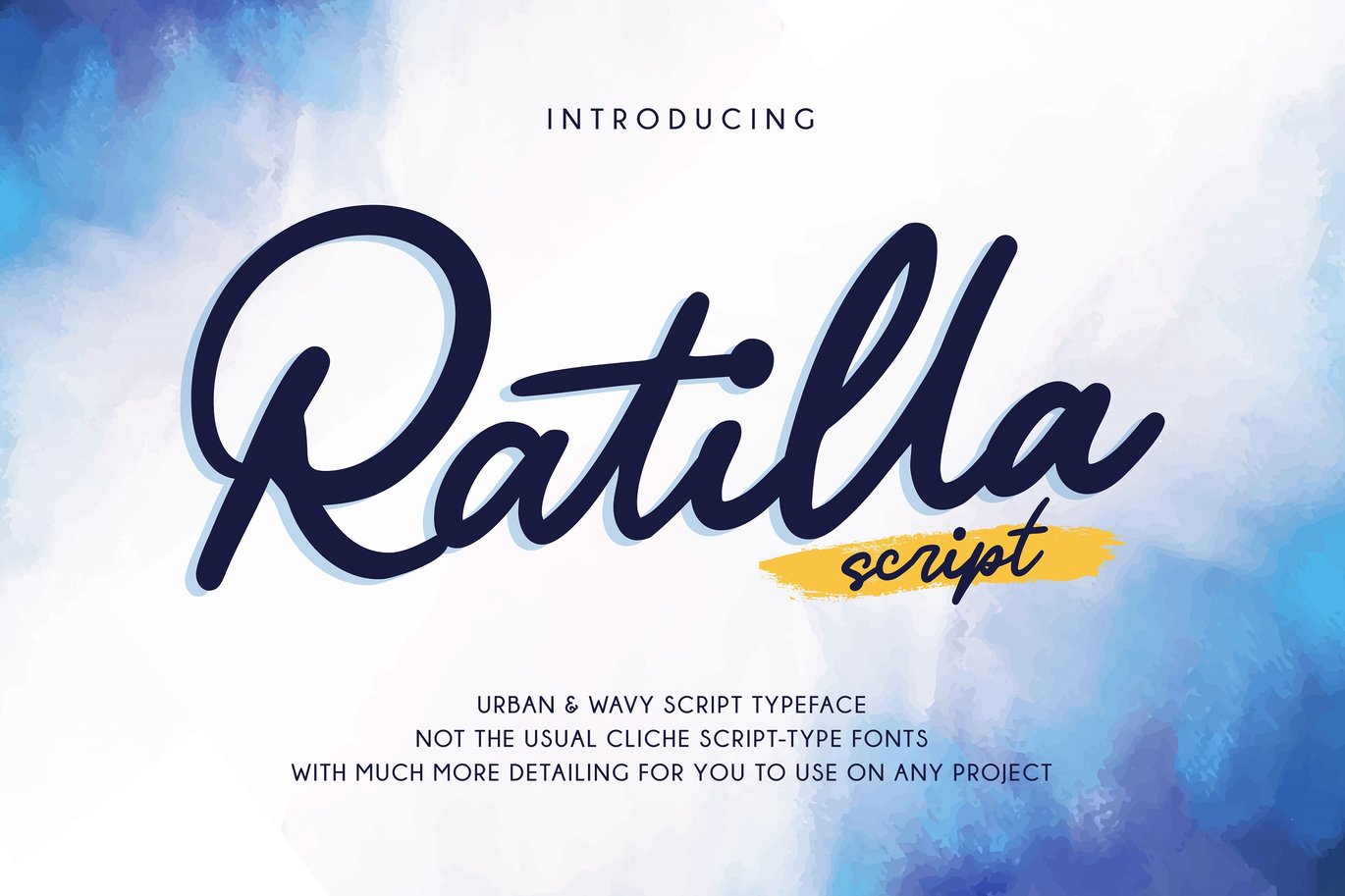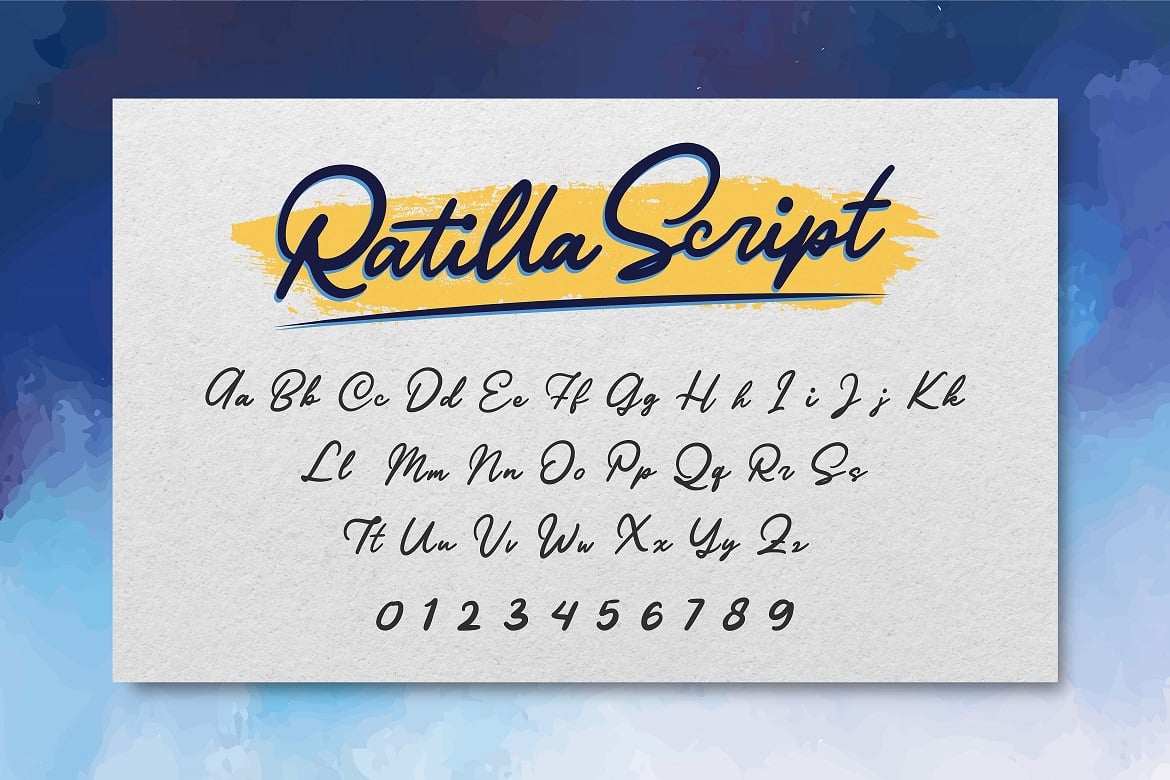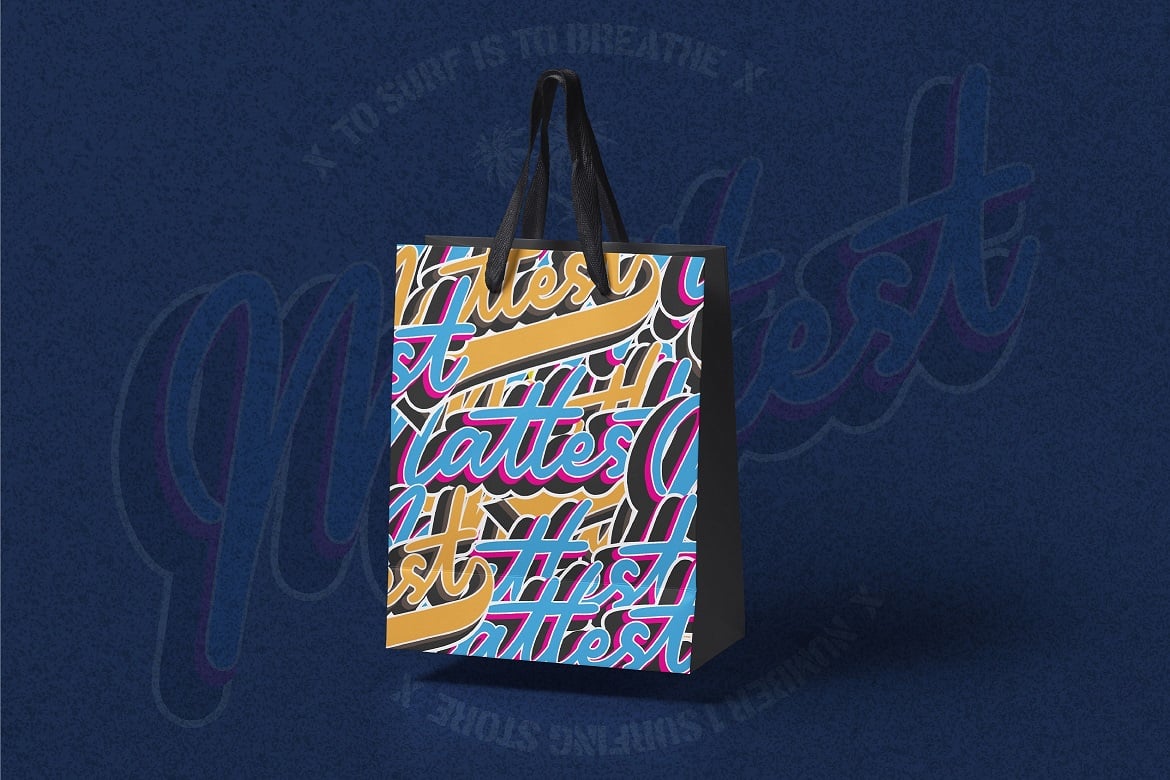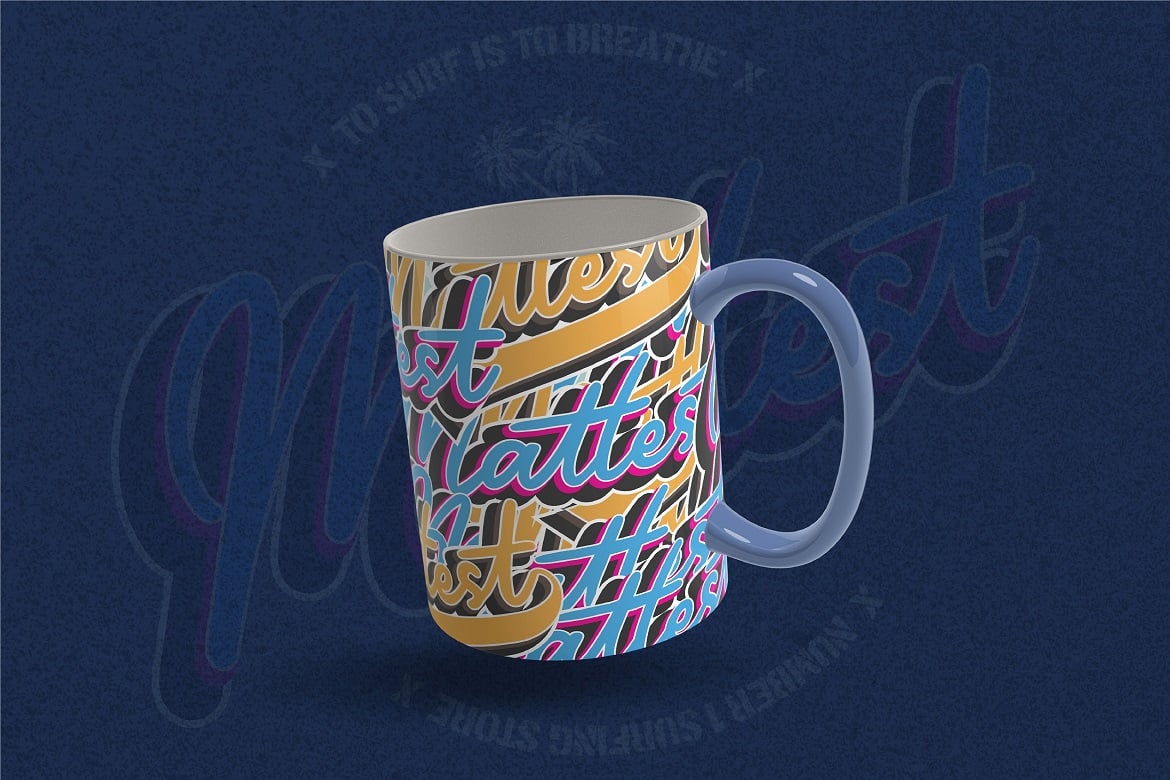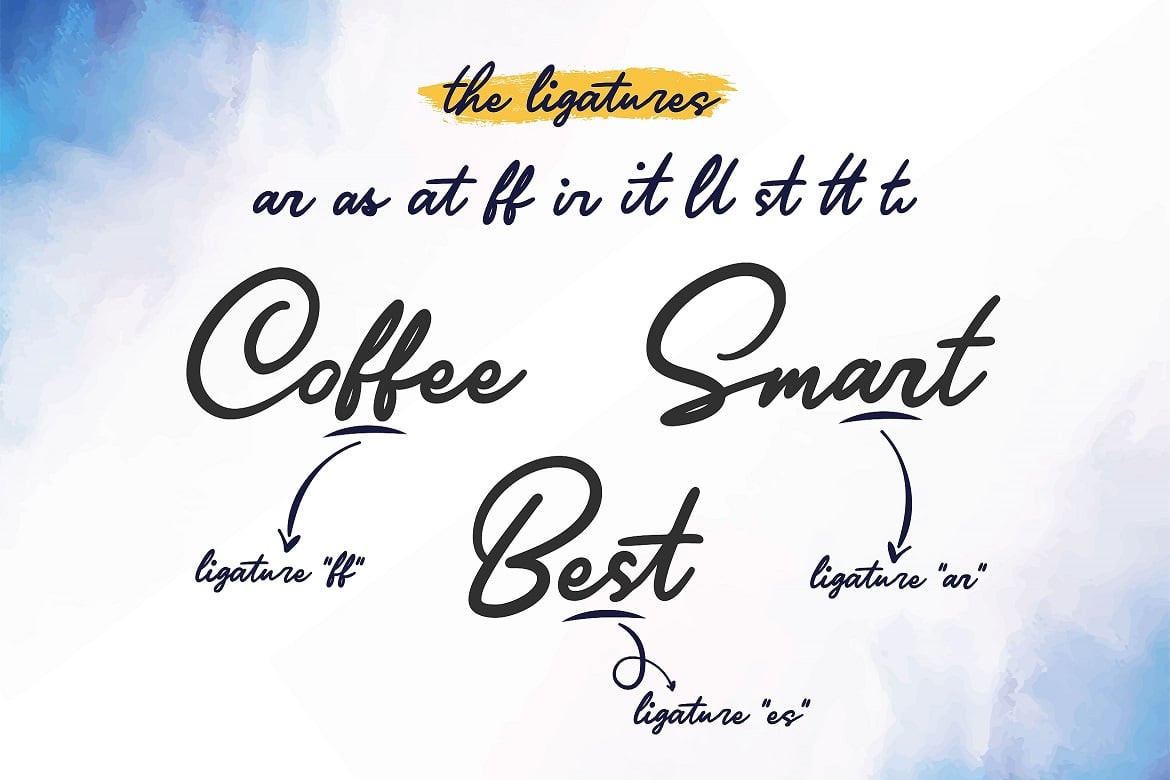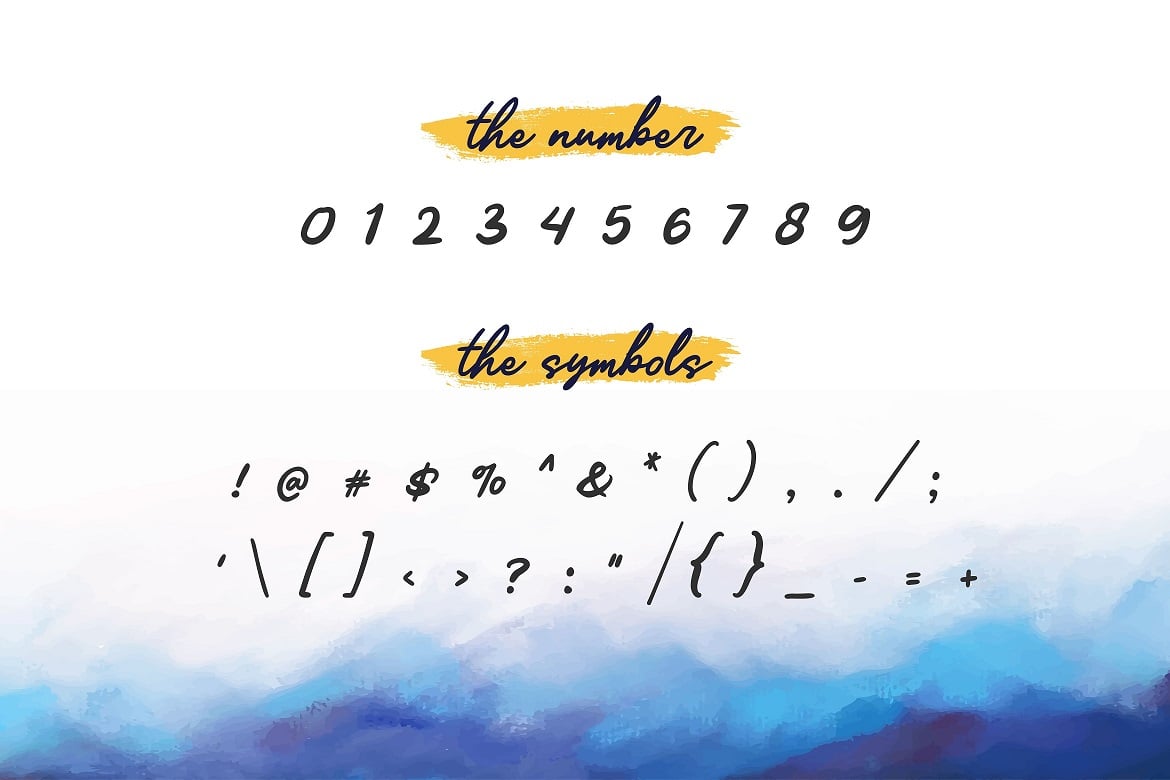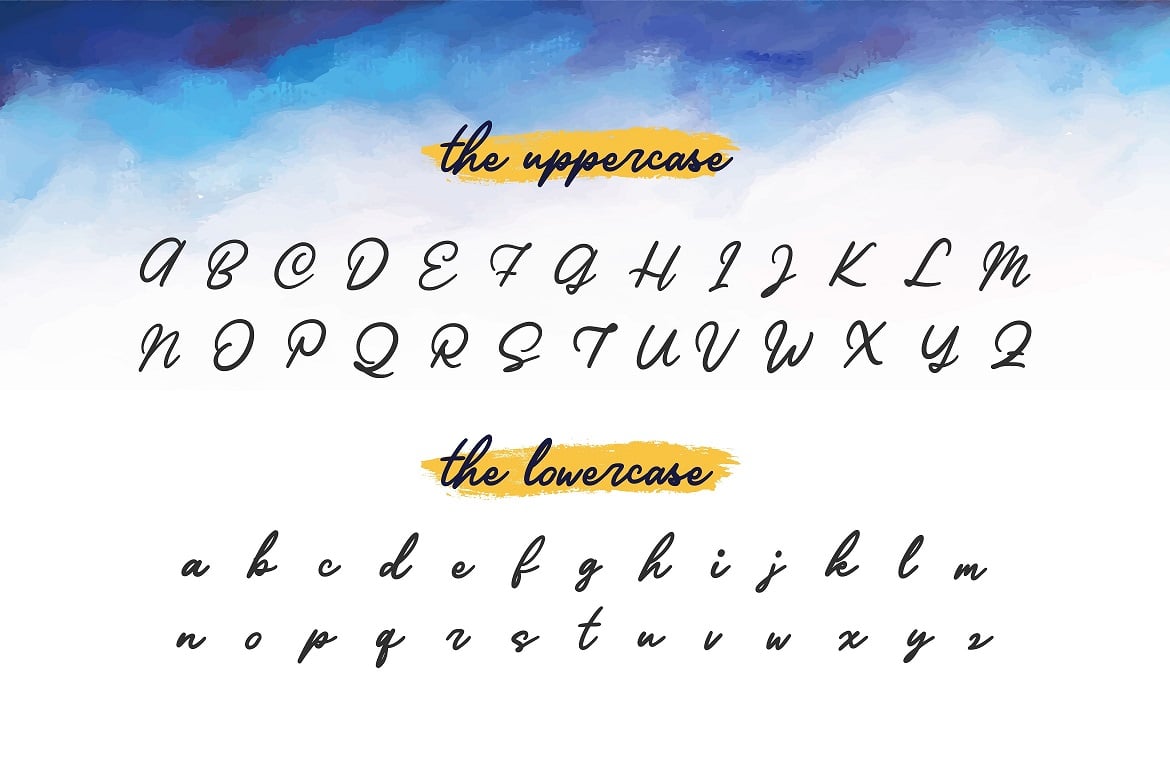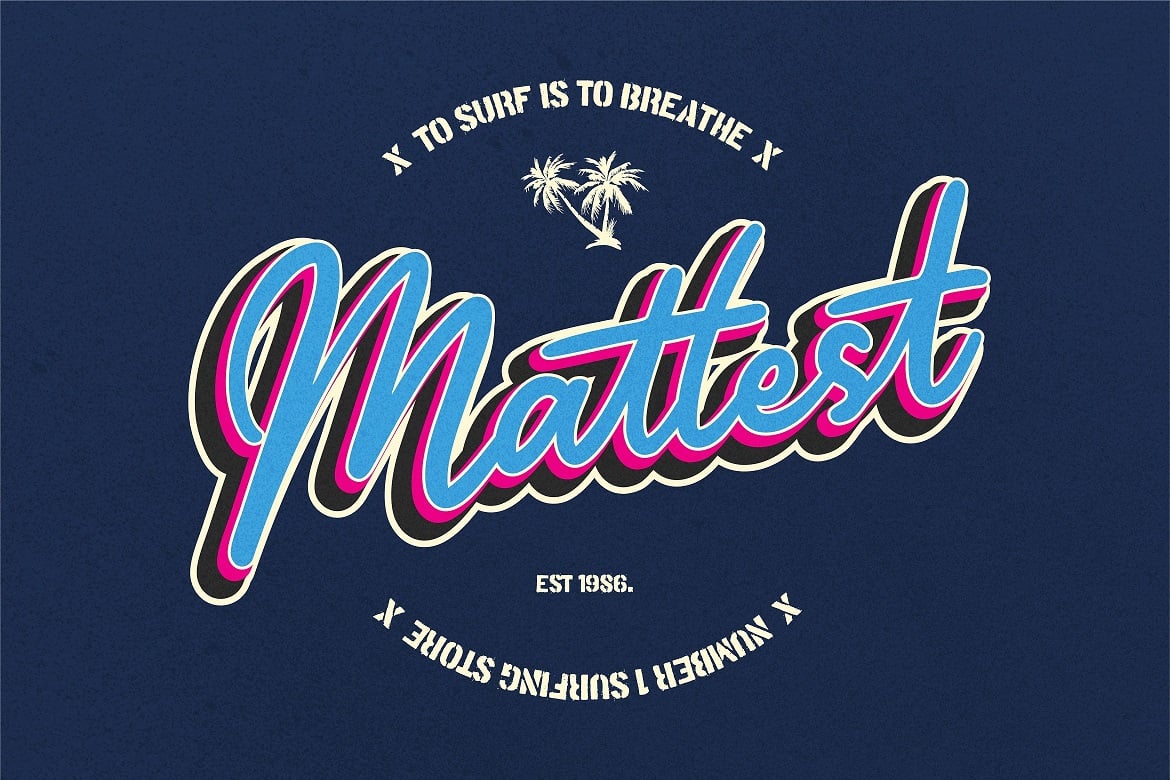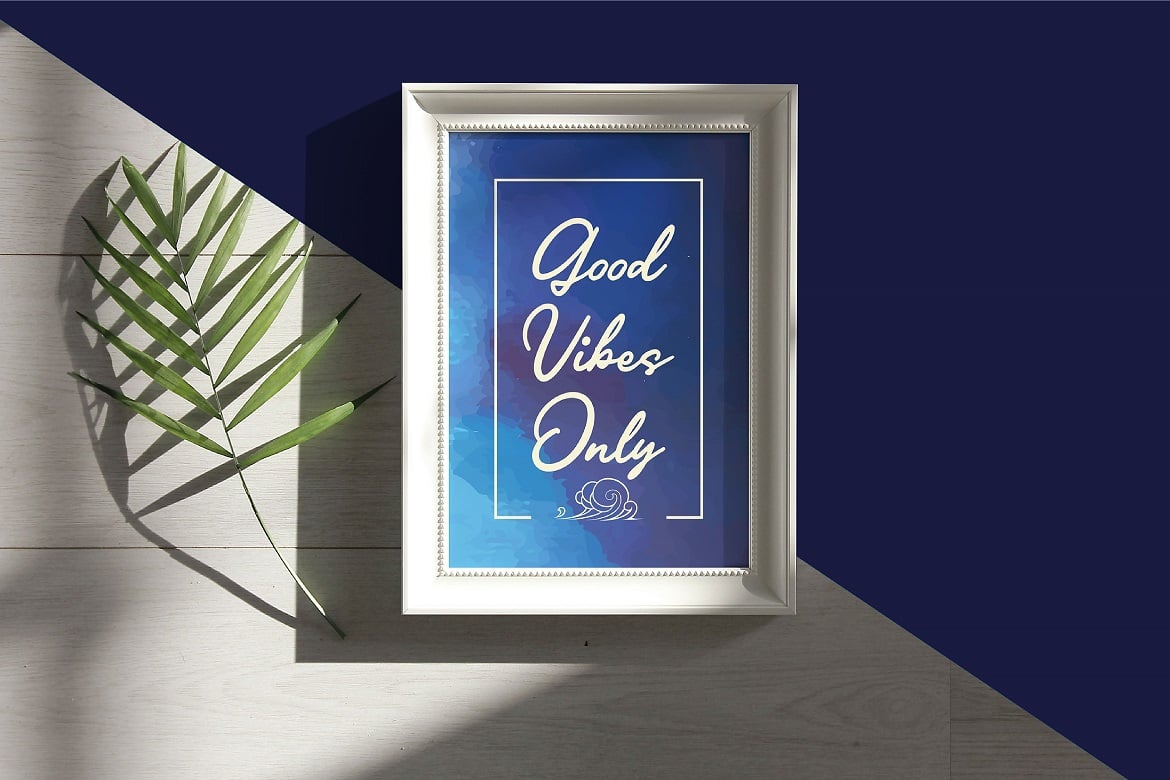
Handwriting Script Font
Ratilla Script
Being a human being often means fulfilling who you really are. It’s about fulfilling your potential and living to the best of your abilities. And the Ratilla Script will help you show the world who you are!
The Ratilla Script paves the way for you to write the information you need to send out to your audience. Make your projects to works of art, conveying your intentions clearly with the font!
Maximize your designs with this urban and wavy font. It surely fits anywhere you want them to, giving them a place perfectly tucked in between your designs.
Connect with your audience and stand out in the crowd as these fonts will show you that you and your works deserve their attention. Show your boldness as you make the world see of the elegant details put together in your projects!
The Ratilla Script will be the perfect addition to aid you in your journey to be who you really are. Let the world see your beauty, bring it out through your handiwork and give your viewers a new perspective!